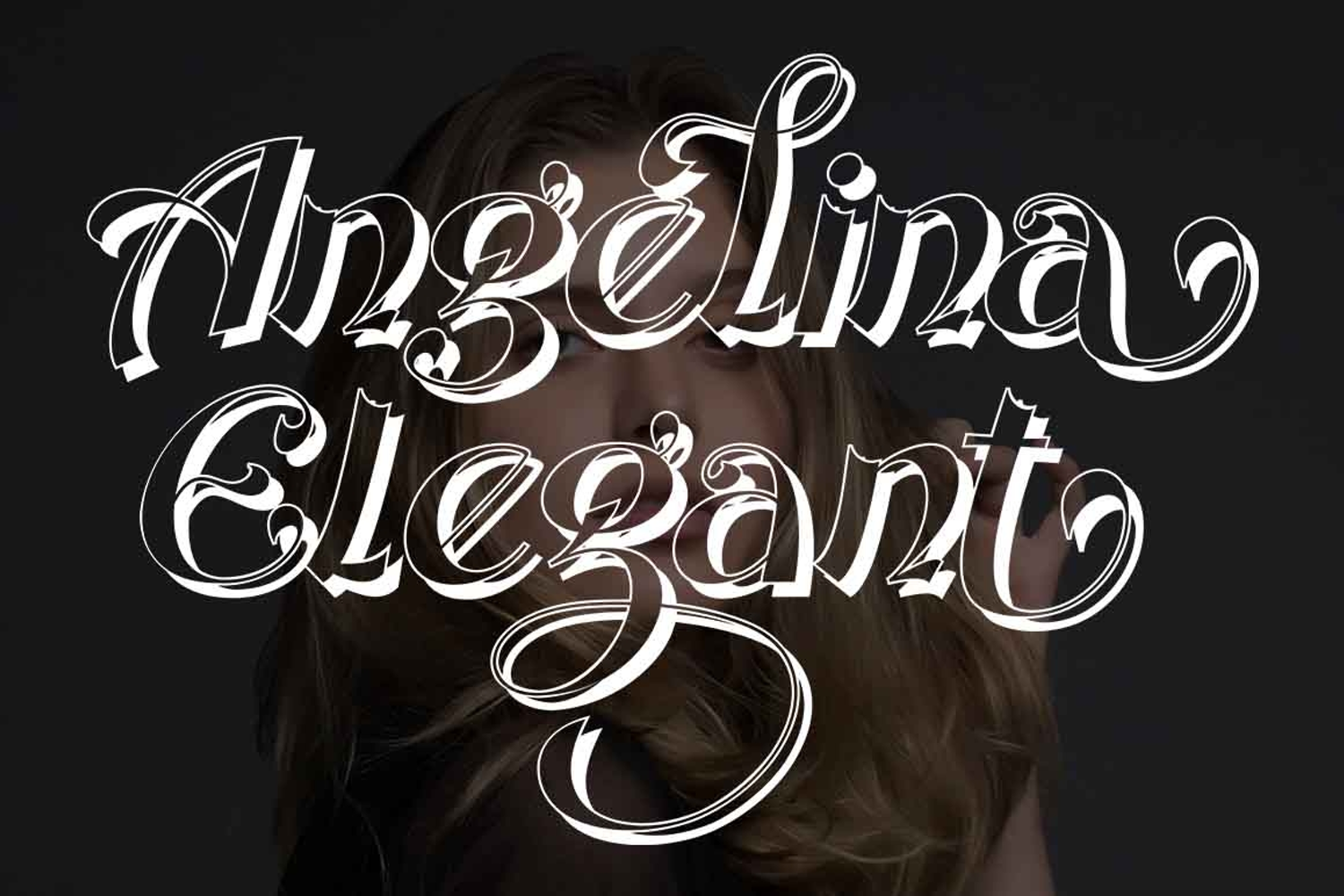
Angelina Elegant
Angelina Elegant is an elegant calligraphy font that combines the beauty of classic decorative copperplate with a modern touch. Designed with great attention to detail, it offers a refined and stylish look that enhances any creative project.
The font’s smooth, clean, and graceful letterforms create a feminine and glamorous feel, while remaining highly legible. Luxurious letter connections and flowing curves make it perfect for designs that need sophistication and charm. Angelina Elegant also comes with alternative styles and stylistic variations, giving you the flexibility to craft unique and personalized typography.
Its timeless appeal makes it ideal for a wide range of applications, including invitations, labels, restaurant menus, logos, fashion and beauty branding, stationery, magazines, books, greeting or wedding cards, packaging, and promotional materials.
Angelina Elegant supports multiple languages and includes advanced OpenType features such as elegant stylistic alternates and ligatures. These features can be accessed automatically or manually, allowing you to explore endless creative combinations and achieve stunning, customized results.